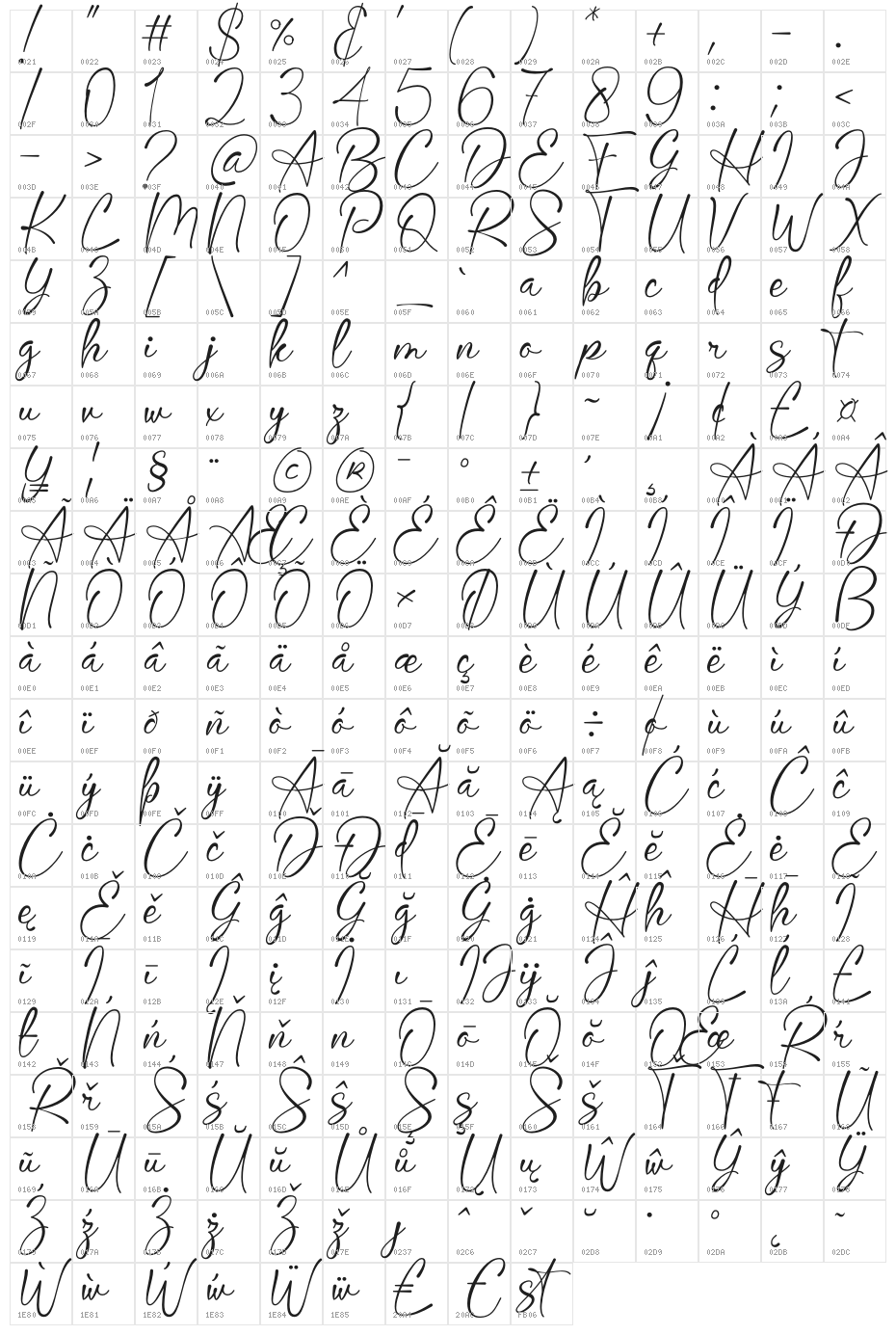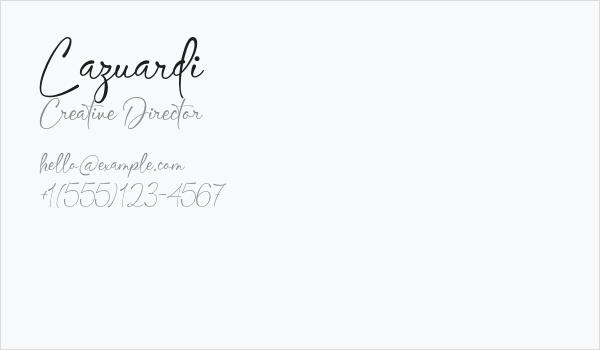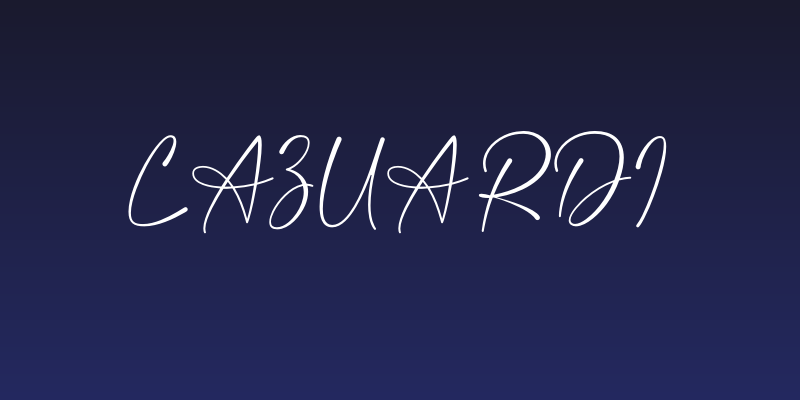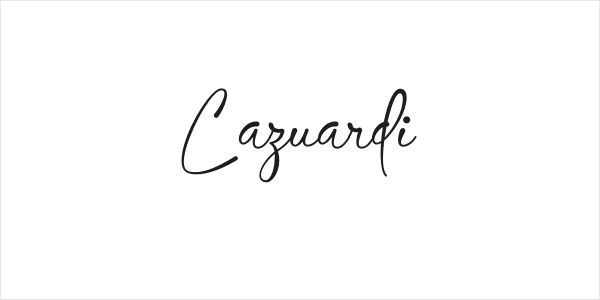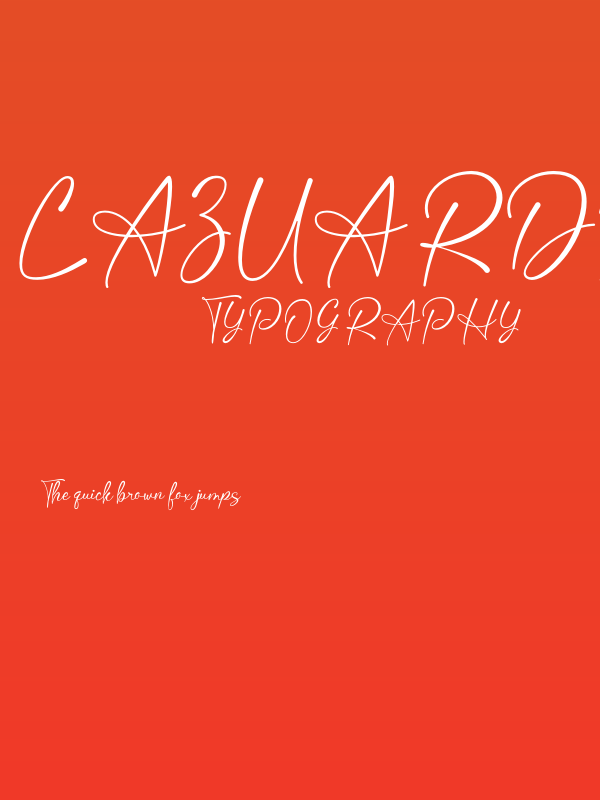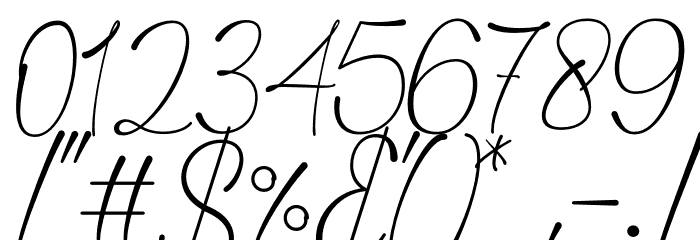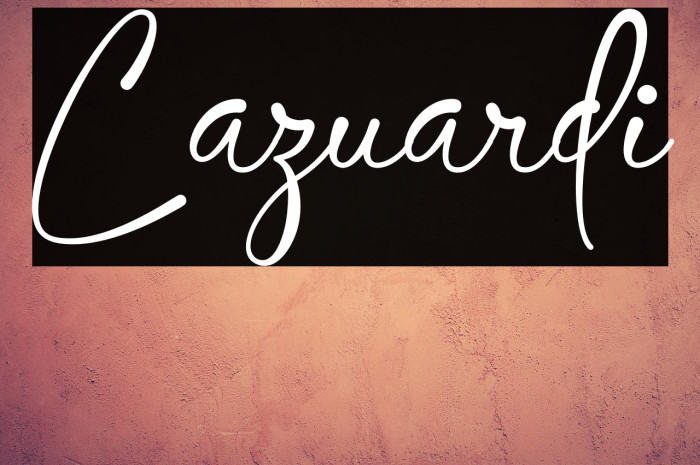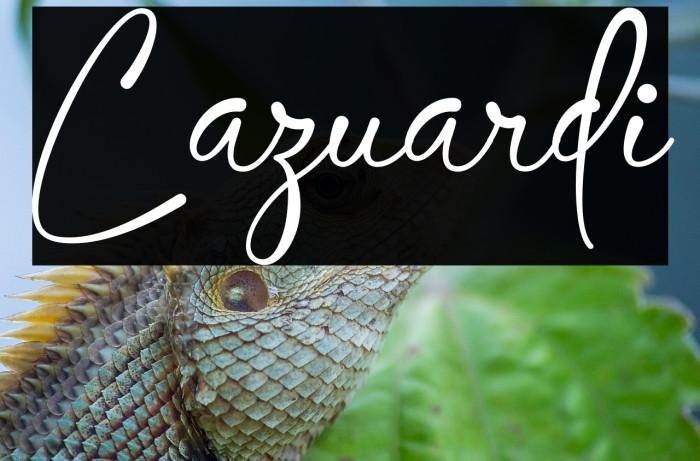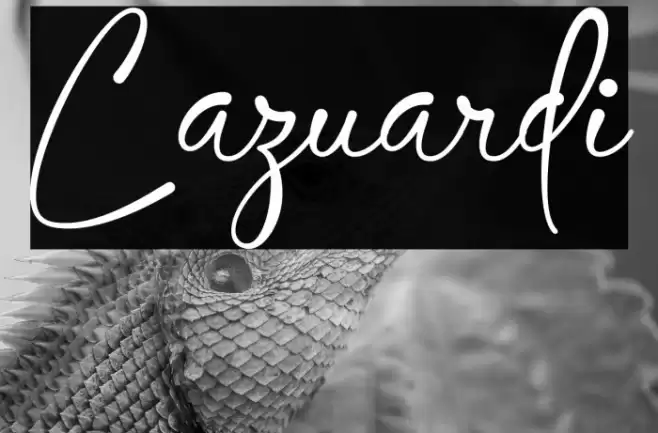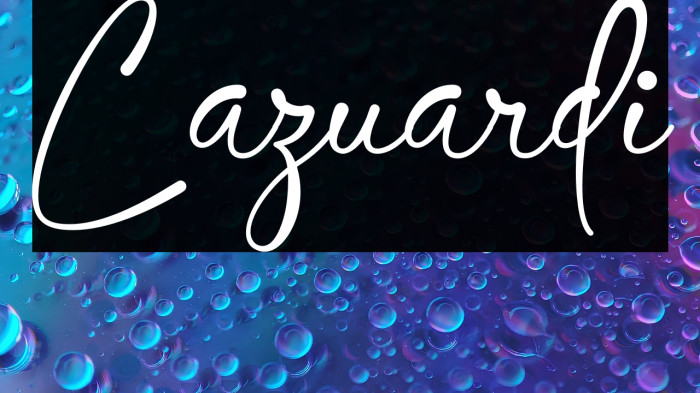
Lazuardi Font
Lazuardi Description
This font features a flowing, cursive style with elegant loops and swashes, giving it a handwritten appearance. The uppercase letters are tall and slender, with a slight slant that adds to the dynamic feel. The lowercase letters are more rounded and connected, enhancing the script-like quality. Numbers and special characters maintain the same fluidity, making the font versatile for various uses. Its overall aesthetic is both sophisticated and approachable, suitable for projects that require a personal touch.
| Overall Style | Elegant, Handwritten |
| Use Case | Logos, Invitations, Personal Branding |
| Proposed Projects | Ideal for wedding invitations, greeting cards, personal branding, and elegant packaging designs. |